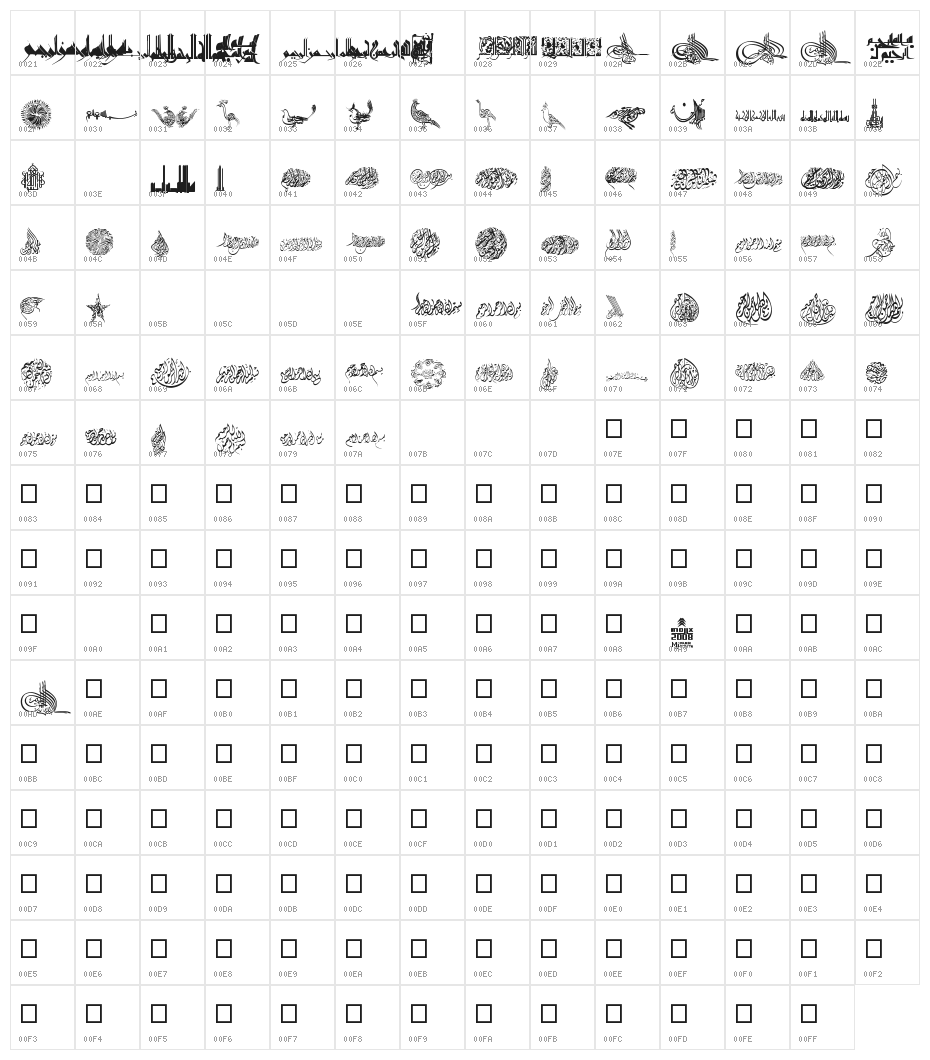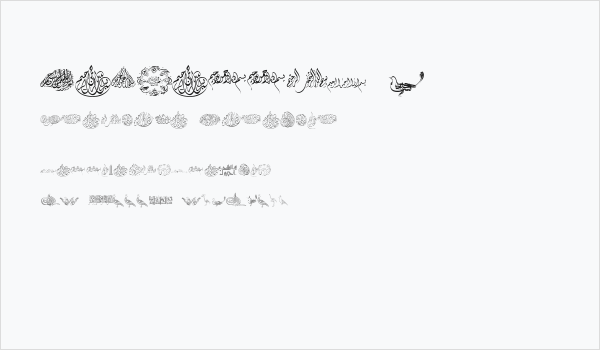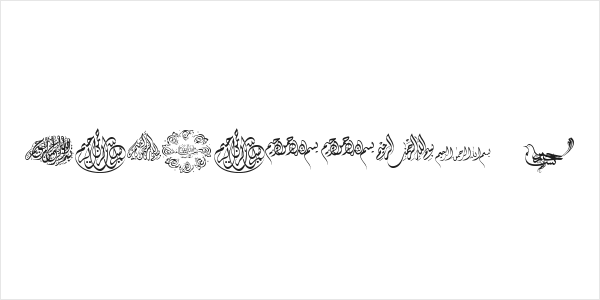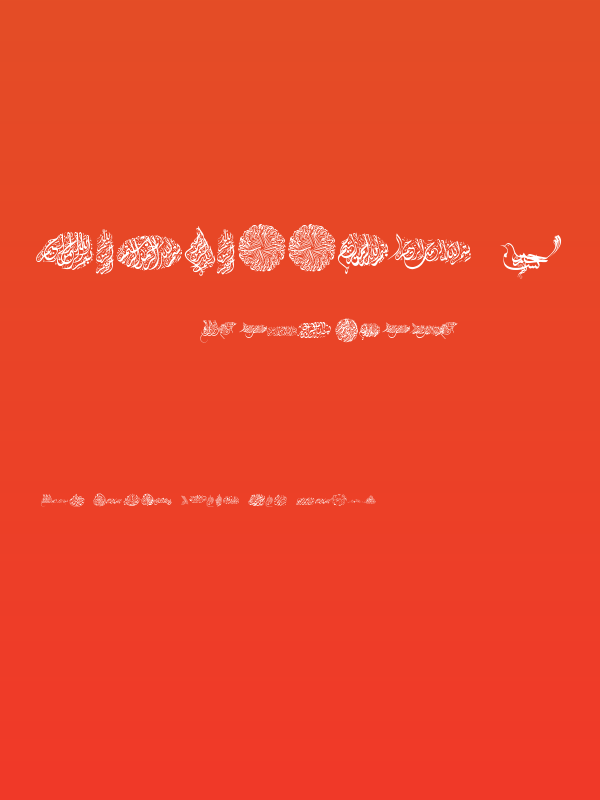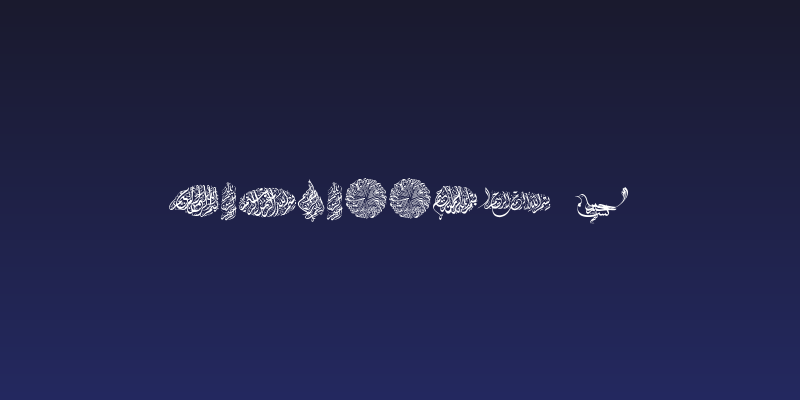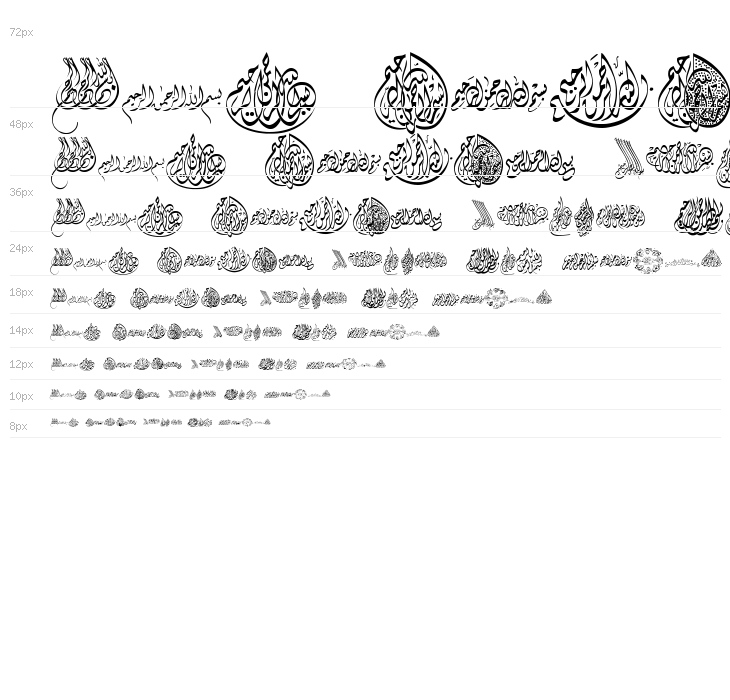
Besmellah 3 Font
Besmellah 3 Description
This is a highly decorative and intricate Arabic calligraphy style, characterized by its elaborate and artistic design. The script features complex curves and flourishes, creating a visually captivating and ornate appearance. Each character is meticulously crafted, often intertwining with others to form a cohesive and harmonious composition. The font is rich in cultural and artistic significance, often used in religious and ceremonial contexts. The detailed craftsmanship and aesthetic appeal make it suitable for special occasions and artistic displays.
| Use Case | Artistic displays, Ceremonial documents |
| Proposed Projects | Ideal for religious texts, ceremonial documents, artistic displays, and cultural projects. |